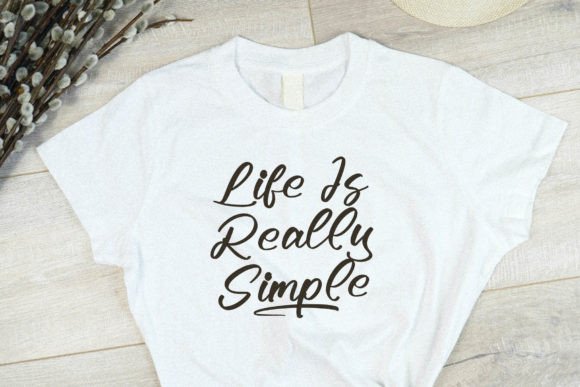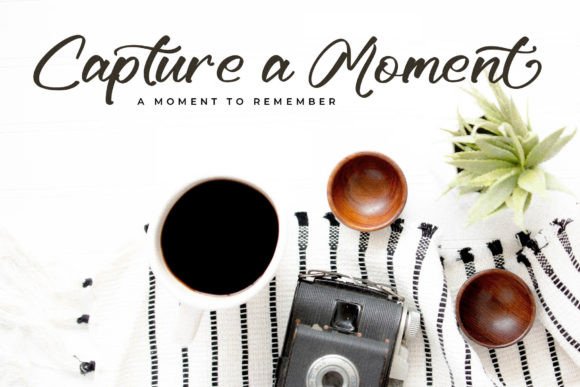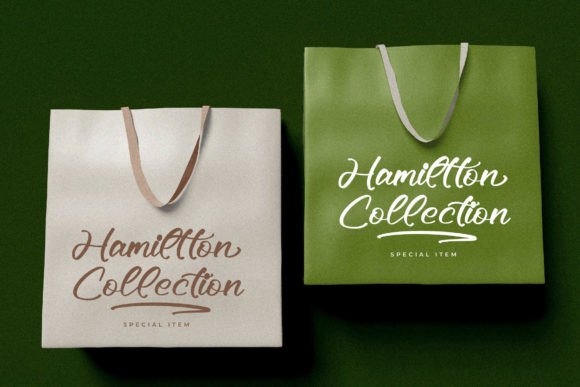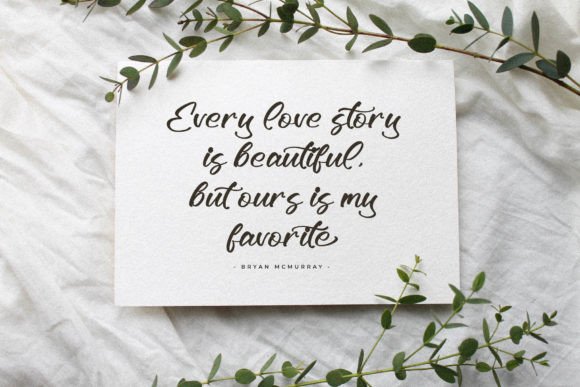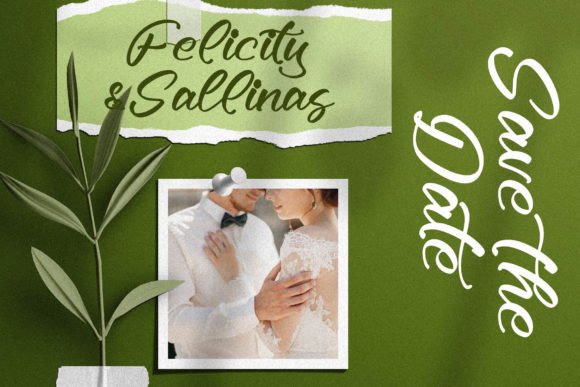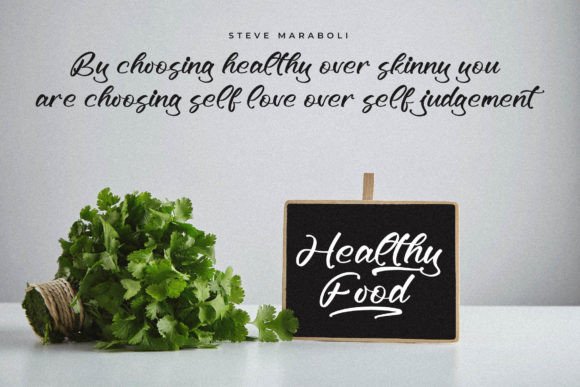
Introduction to Muthias Aullysa Font
Muthias Aullysa is a modern calligraphy script typeface.
This elegant handwritten font is suitable for logos, branding projects, homeware designs, product packaging, mugs, quotes, posters, shopping bags, t-shirts, book covers, name cards, invitation cards, greeting cards, labels, photography, watermark, or special events .